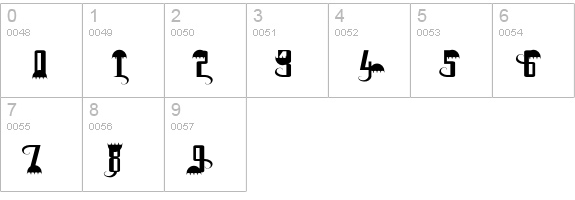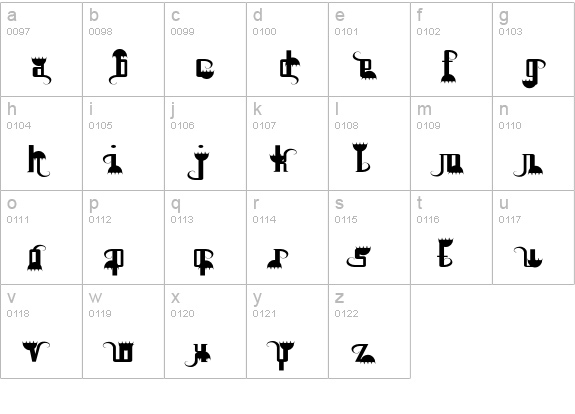
Flytrap Font Details
Introducing Flytrap font - a striking and modern typeface that is sure to capture attention and make a statement in any design project. With its bold and unique letterforms, Flytrap exudes a sense of sophistication and creativity, making it perfect for a wide range of applications. This eye-catching font is not only visually appealing but also versatile, suitable for both headlines and body text. Whether you're designing a poster, logo, website, or any other project, Flytrap will add a touch of personality and flair. Best of all, Flytrap font is available for free download at FontsMarket.com. So go ahead and elevate your designs with this one-of-a-kind typeface today!